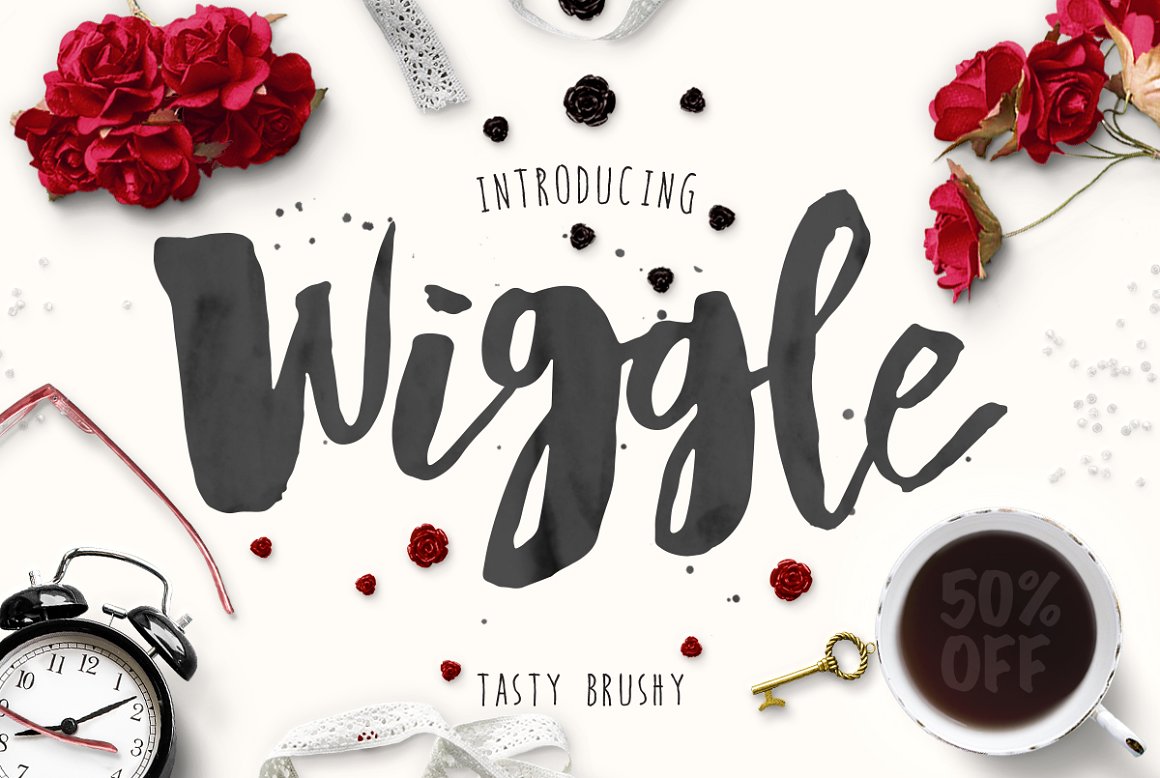
Wiggle Brush
Wiggle Brush Font
Still with the same old love, let us introduce The Wiggle. Another “these kinda” brushy handy typeface with all of those jumpy feels and some “whatever” thin-and-bold script styles. Just like the others, comes with an Uppercase, Lowercase, Numbers, Punctuations and Multilingual-but-not-so, Ligatures as well and oh yeah of course the Stylistic Alternates for all of those Uppercase and Lowercase things. I’m not finish at all, there are Bonuses as well. A swirly-swashy Vector Packs to increase your creativity and a Photoshop Splatter Brush to spit those things out.
Wiggle Brush